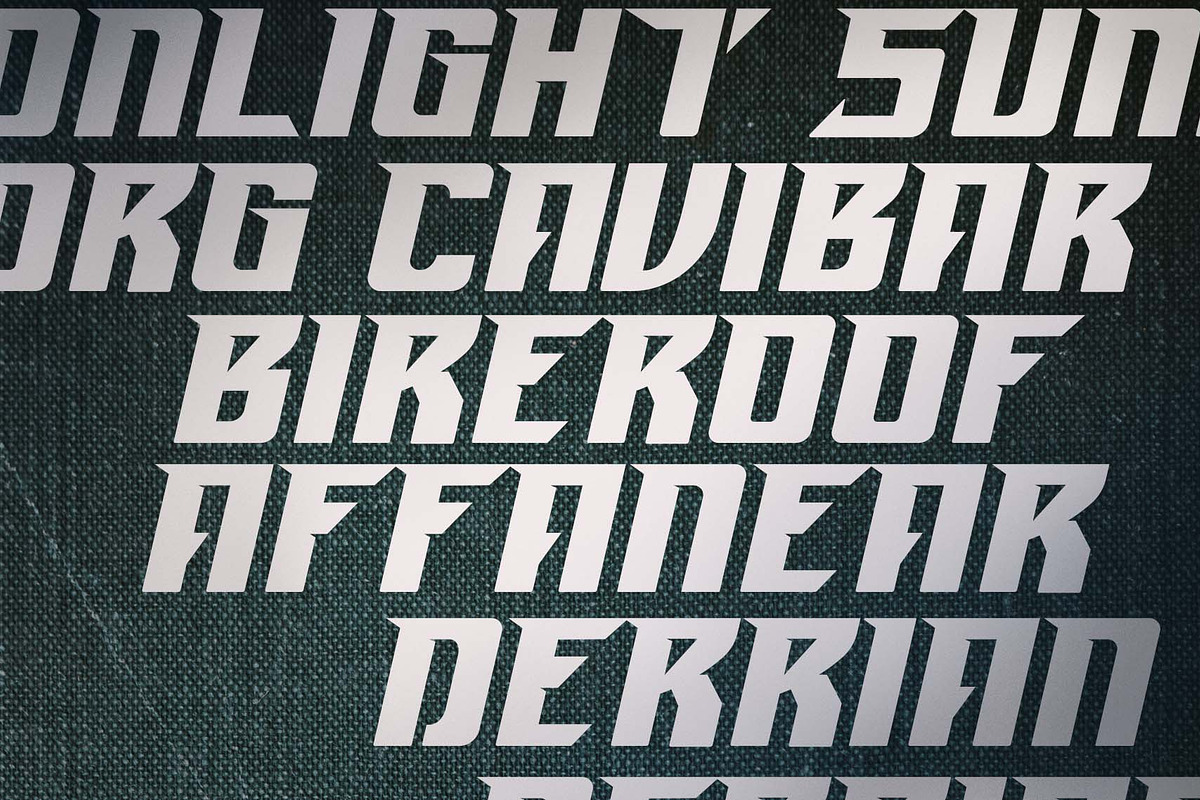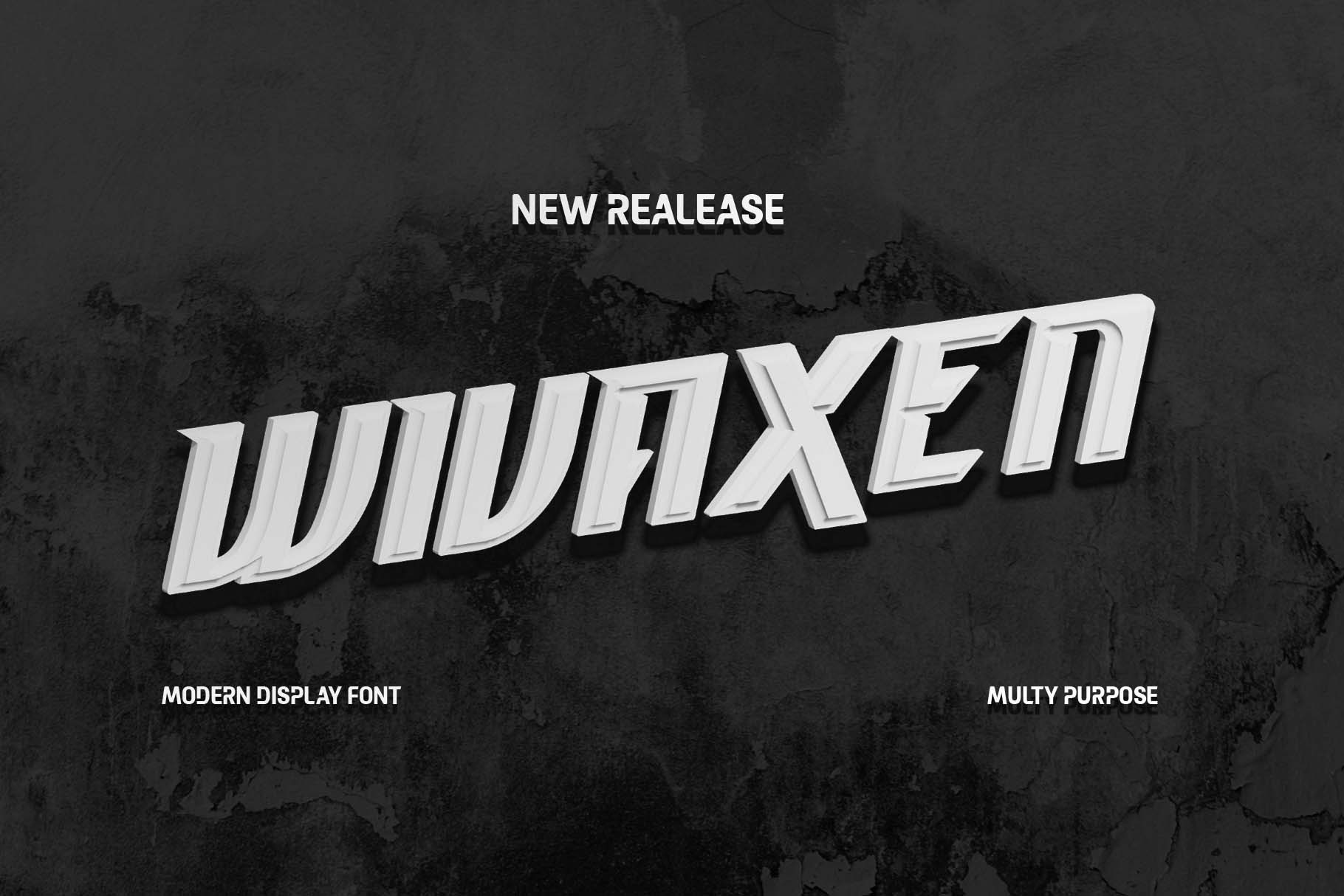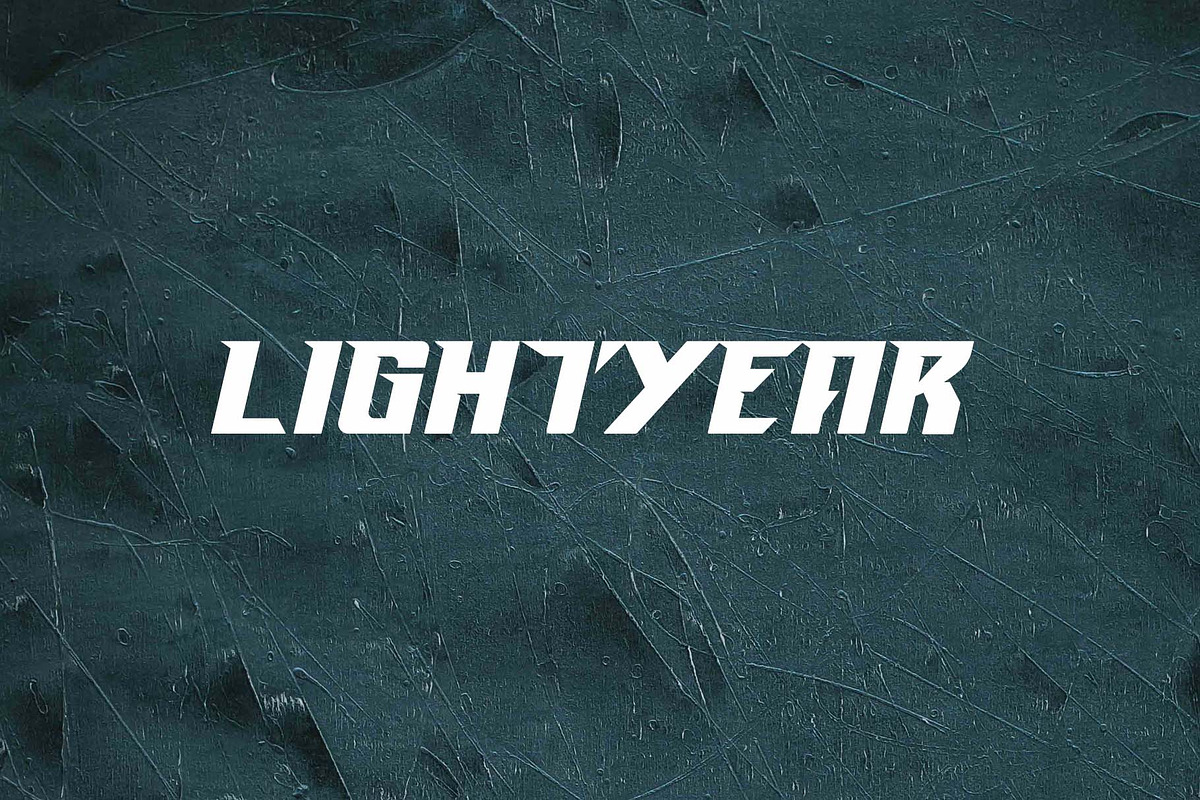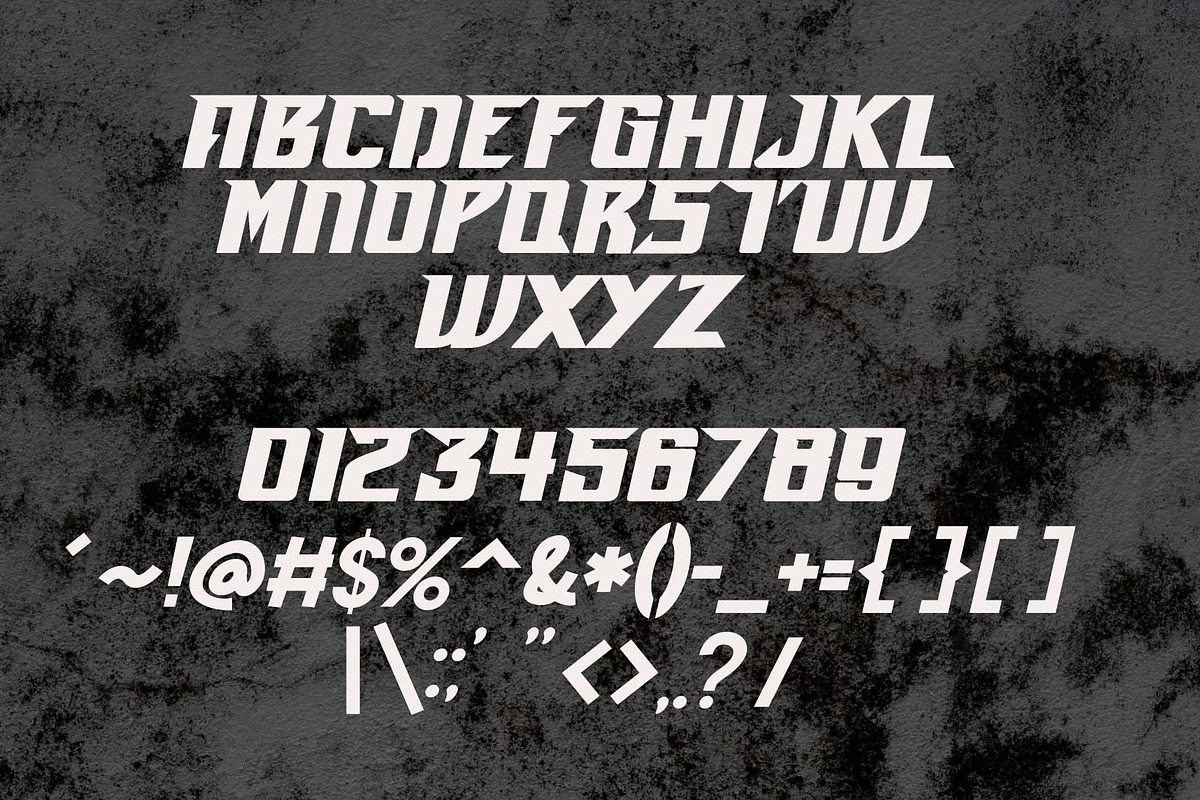
Wivaxen - Modern Display Font
Introducing Wivaxen, a unique, modern, and simple display font. So perfect for you who needs a typeface for logo designs, magazine, social media, brochure, and many more.